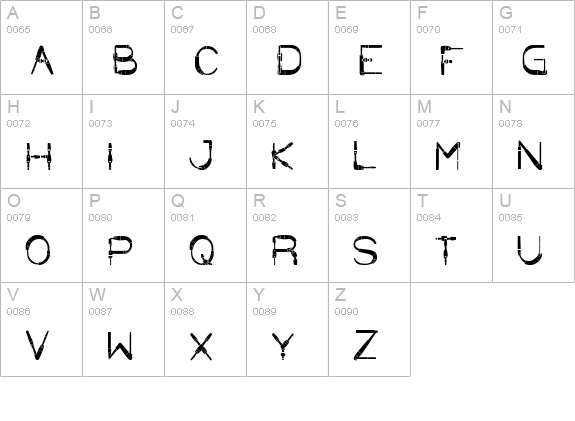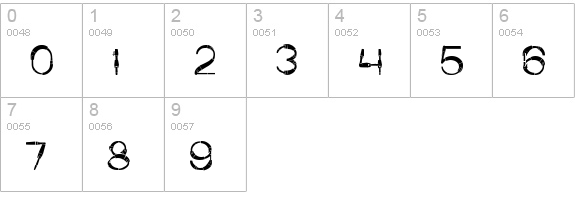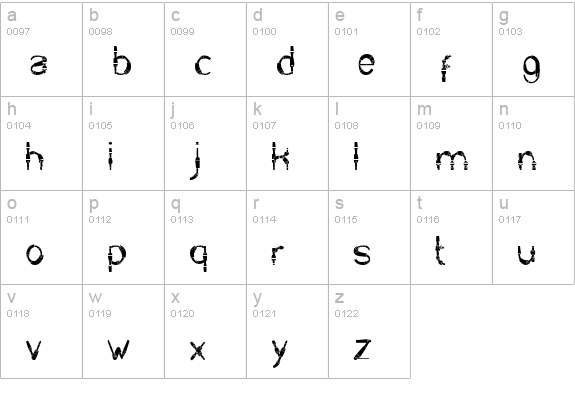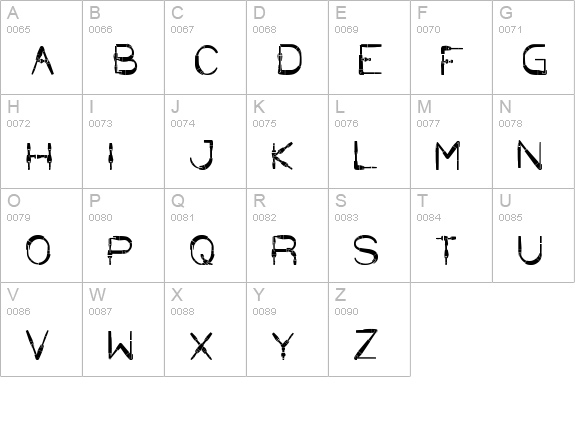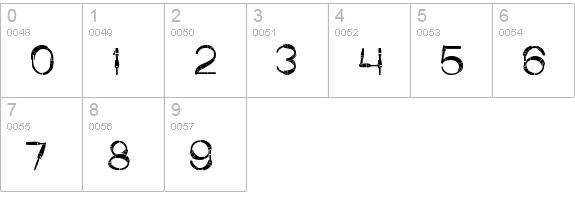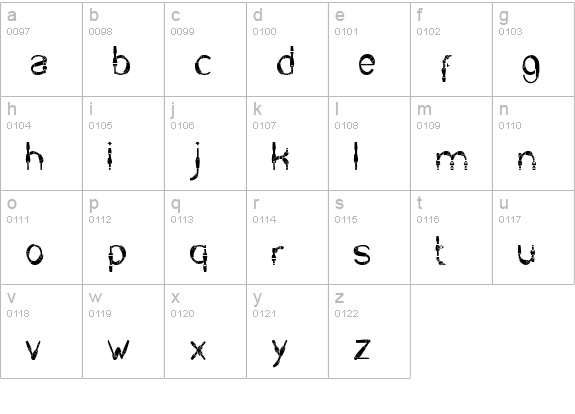
COPPER Font Details
Introducing COPPER, a captivating and versatile font that combines timeless elegance with a modern twist. This exquisite typeface is a true gem in the world of typography, exuding a sense of sophistication and charm that is simply irresistible. COPPER boasts beautifully crafted letterforms, meticulously designed to strike the perfect balance between classic and contemporary aesthetics. Its smooth curves and clean lines lend it an air of refinement, making it suitable for a wide range of design projects. Whether you're working on a logo, branding materials, invitations, or editorial designs, COPPER is sure to make a lasting impression. Its versatility knows no bounds, seamlessly adapting to any context while still maintaining its distinctive personality. But what truly sets COPPER apart is its accessibility. This exceptional font is not only visually stunning but also completely free. Yes, you read that right! COPPER is freely available to download at FontsMarket.com, ensuring that designers from all walks of life can enjoy its beauty without any restrictions. With COPPER, you not only gain access to a remarkable font but also the freedom to express your creativity without limitations. So why wait? Embrace the elegance and versatility of COPPER today and elevate your designs to new heights.